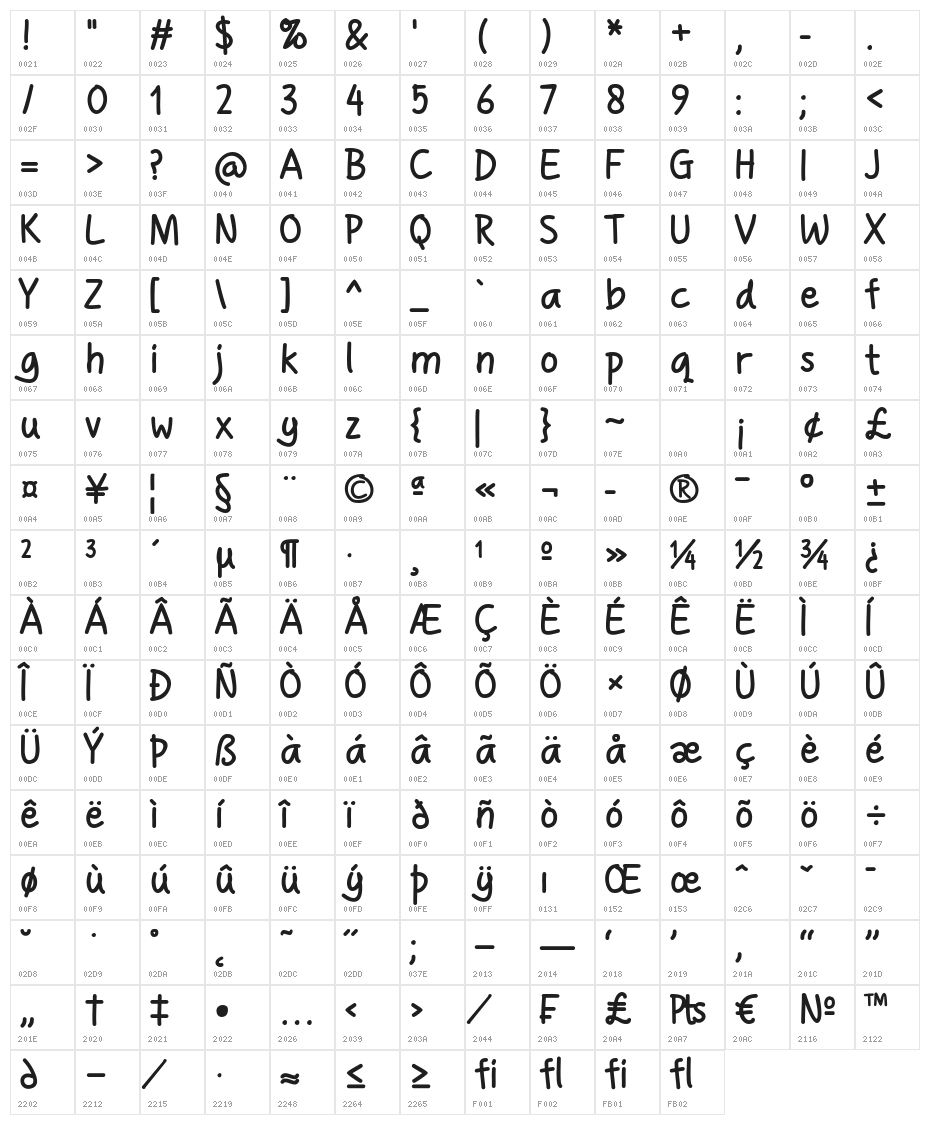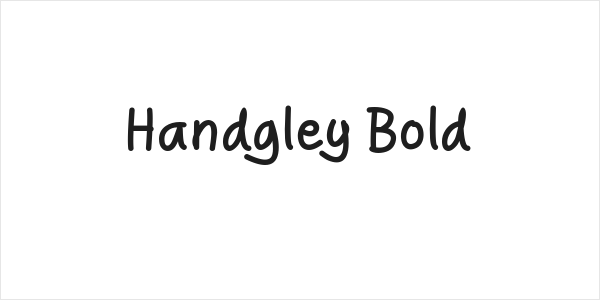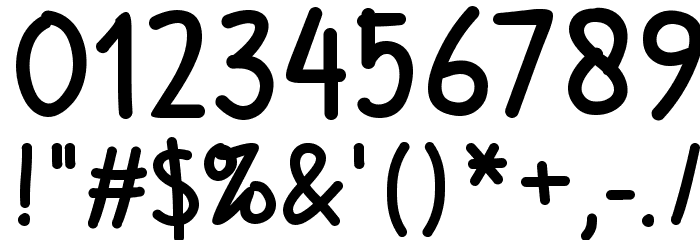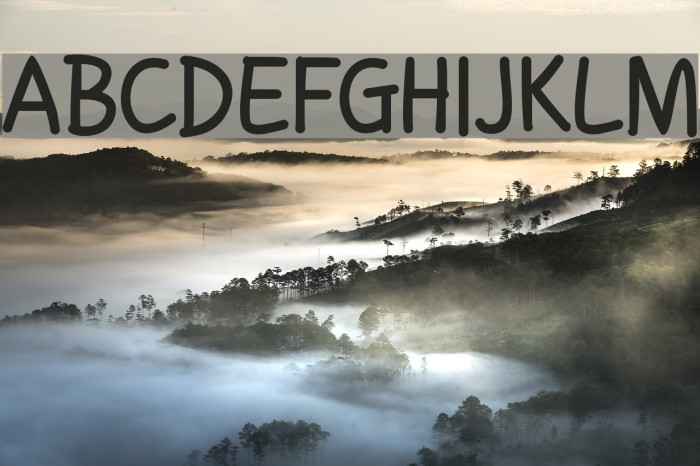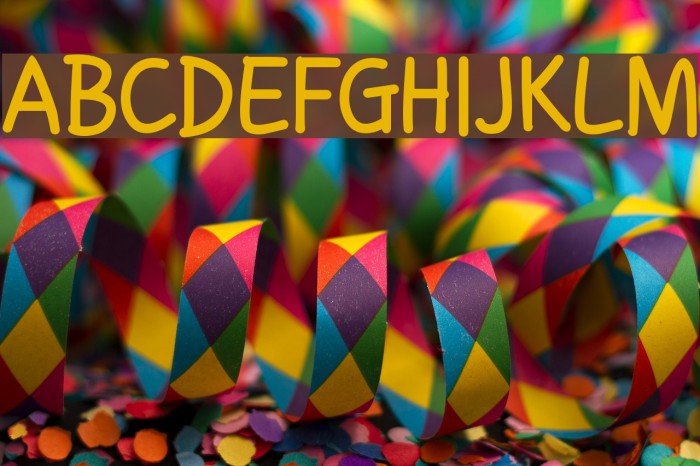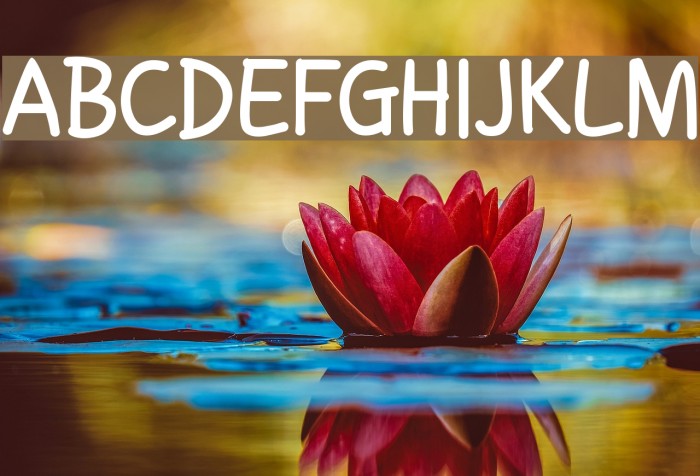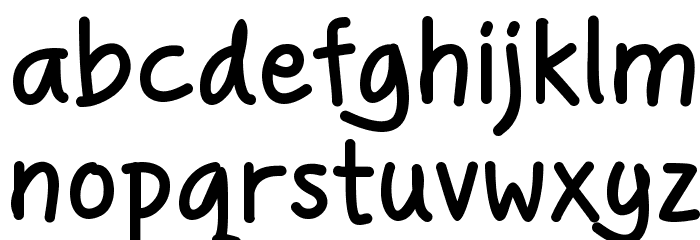
Handgley Bold Font
Handgley Bold Description
This font features a playful and casual handwritten style, characterized by its rounded and slightly irregular letterforms. The strokes are bold and consistent, giving it a friendly and approachable appearance. The uppercase and lowercase letters maintain a uniform height, enhancing readability while preserving a whimsical charm. The numerals and special characters are designed to match the overall style, ensuring a cohesive look across all text elements. This font's informal nature makes it suitable for projects that aim to convey warmth and creativity.
| Proposed Projects | Ideal for children's books, greeting cards, casual branding, and social media graphics. |